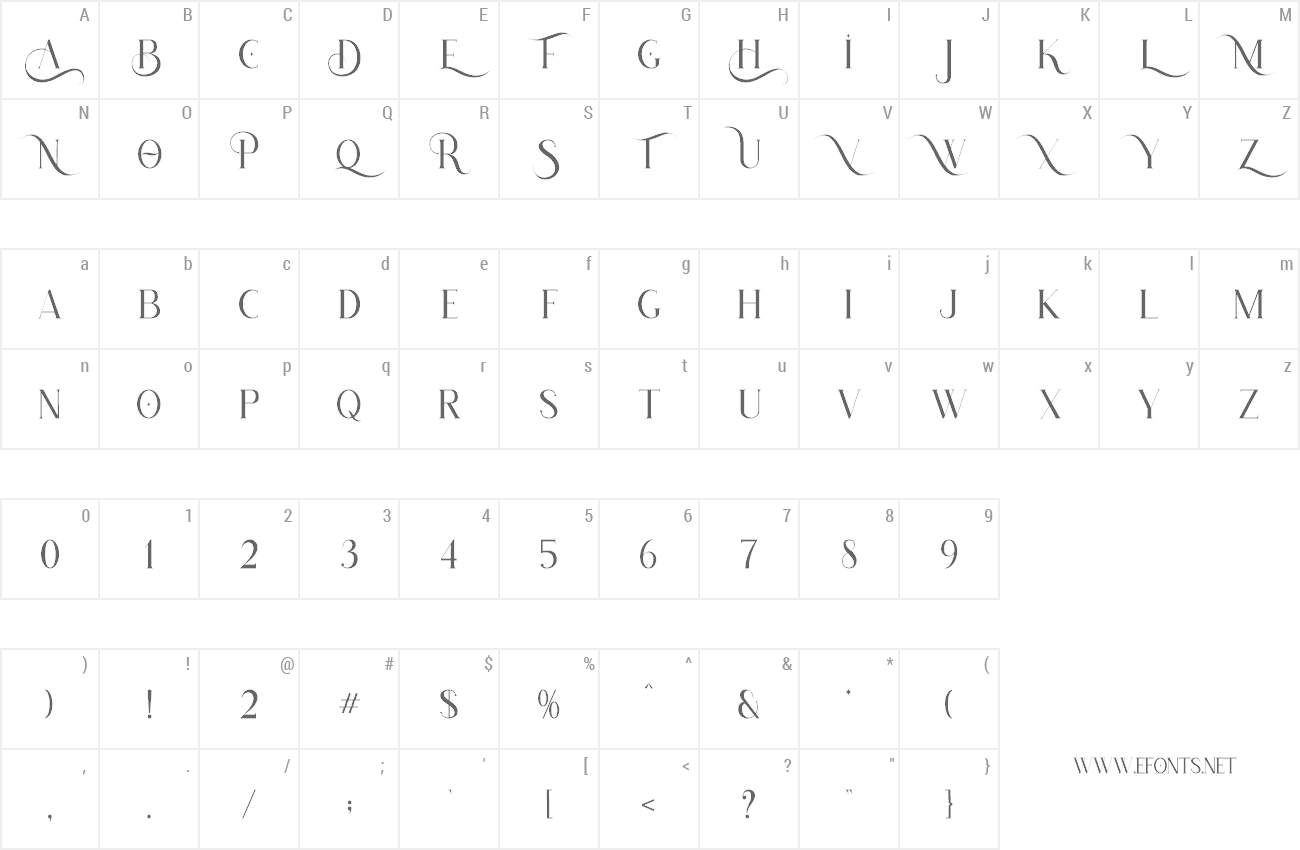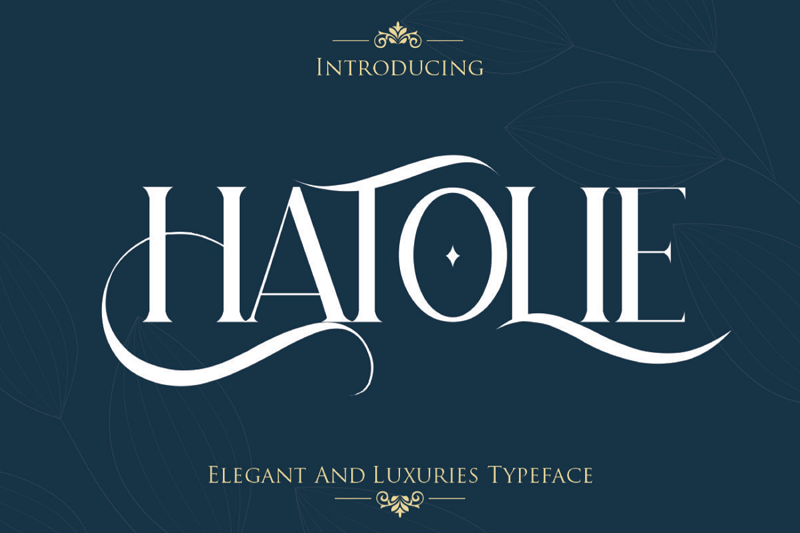
Introducing New Font : Hatolie - Elegant And Luxuries Typeface will work perfectly for fashion, e-commerce brands, trend blogs, wedding boutiques or any business that wants to appear upscale and chic. Hatolie - Elegant And Luxuries Typeface also Suitable for Logo, greeting cards, quotes, posters, branding, name card, stationary, design title, blog header, art quote, typography, art, modern envelope lettering or book design, happening style like handdrawn design or watercolor design theme, craft design, any DIY project, book title, or any purpose to make your art/design project look pretty and trendy. Product Content : -Hatolie OTF -Hatolie TTF -Preview Images Features : -Uppercase & Lowercase -Numerals & Punctuations (OpenType Standard) -Accents/Multilingual characters -PUA Encoded See fullversion here : https://www.creativefabrica.com/product/hatolie/ref/236330 Feel Free contact me if u any question. Give it a try! You will surely love it! Thanks and have a wonderful day, Gilar :) |